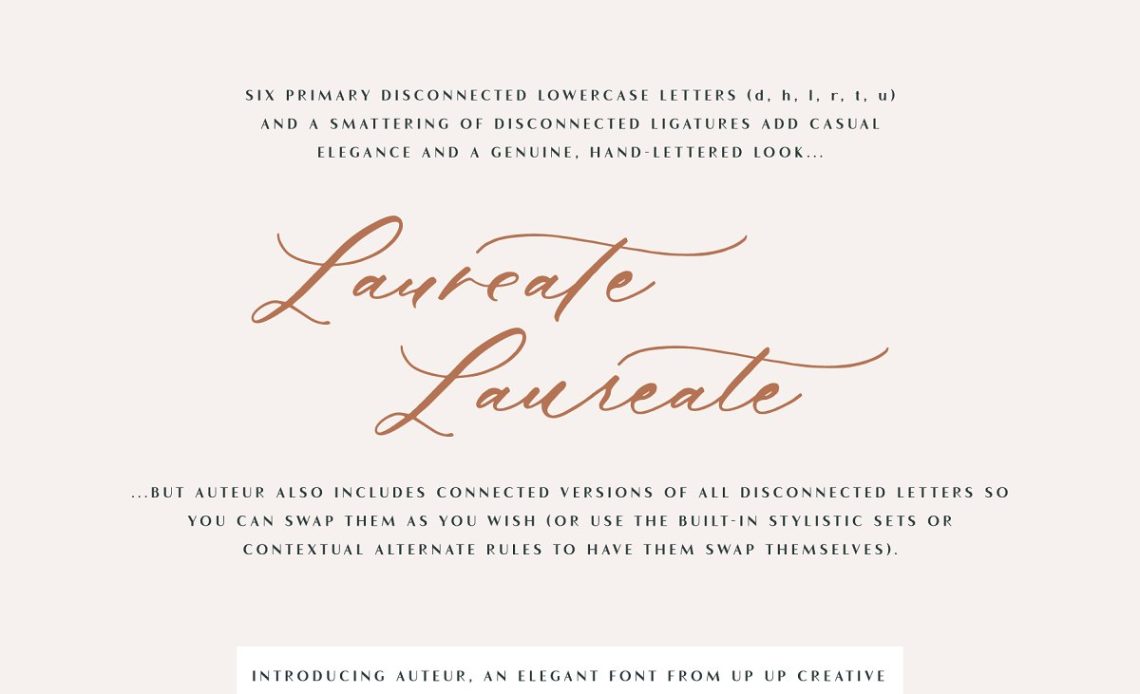
Are you looking for the best fonts for wedding cards? Look no further than Auteur Calligraphy Script Font. Created by the talented Julie Green, Auteur is a full-featured script font with over 1200 glyphs and multiple OpenType features. Auteur's heavy right slant and realistic disconnected letters make it perfect for invitations, branding, and editorial design.
But what sets Auteur apart from other script fonts is the multiple versions of all ascending and descending letters, allowing for endless layout and composition possibilities. Plus, because it's an OpenType font, all of these features are included in one single font file.
Auteur includes contextual alternates, stylistic alternates, optional initial and final forms, multilingual support (including multiple currency symbols), ligatures, multiple numeral forms, and ten ampersand styles. These features can be easily accessed using OpenType-savvy programs such as Adobe Illustrator and Adobe InDesign.